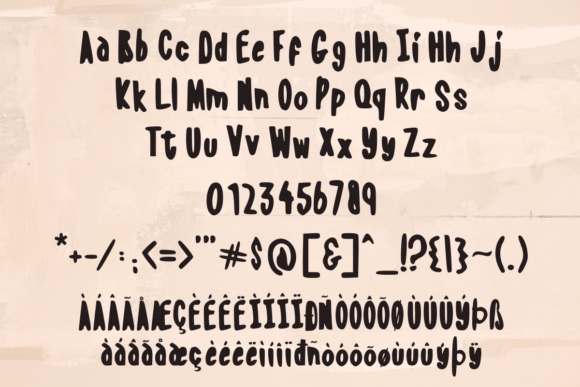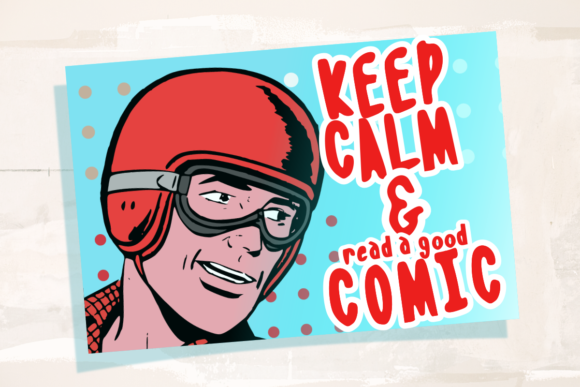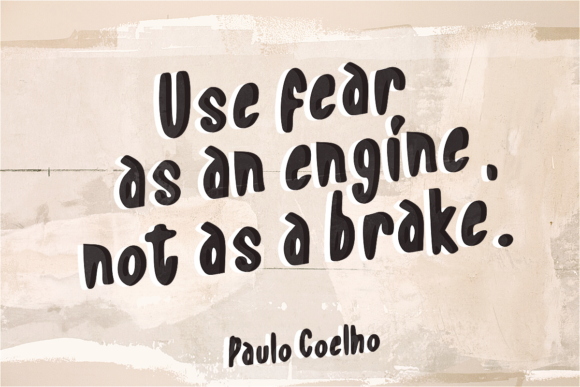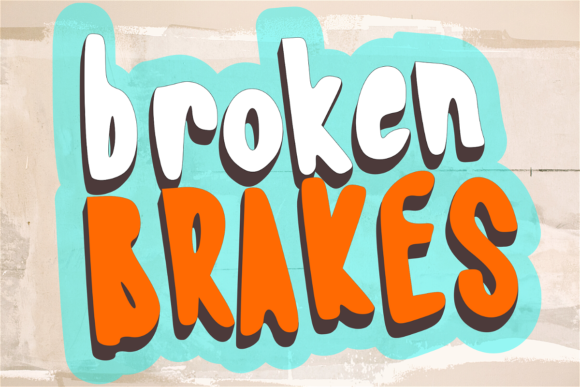
Introducing Broken Brakes Font: The Ultimate Display Font for Creative Projects
Are you tired of using the same old fonts for your creative projects? Do you want to add a touch of uniqueness and personality to your designs? Look no further than Broken Brakes Font, a friendly and authentic display font that’s sure to make your ideas stand out.
What is Broken Brakes Font?
Broken Brakes Font is a display font designed to add a touch of ruggedness and charm to your creative projects. With its unique and authentic style, this font is perfect for designers, crafters, and anyone looking to add some personality to their work.
Key Features of Broken Brakes Font
- Unique and Authentic Style: Broken Brakes Font has a one-of-a-kind design that’s sure to grab attention.
- Display Font: This font is specifically designed for display purposes, making it perfect for headlines, titles, and other prominent text elements.
- Easy to Read: Despite its rugged style, Broken Brakes Font is easy to read and understand, making it perfect for a wide range of applications.
- Versatile: This font can be used for a variety of creative projects, from posters and flyers to social media graphics and website headers.
- Posters and Flyers: Use Broken Brakes Font to create eye-catching posters and flyers that grab attention.
- Social Media Graphics: Add a touch of personality to your social media graphics with Broken Brakes Font.
- Website Headers: Use Broken Brakes Font to create unique and memorable website headers.
- Branding and Packaging: Use Broken Brakes Font to add a touch of ruggedness and charm to your branding and packaging materials.
Benefits of Using Broken Brakes Font
There are many benefits to using Broken Brakes Font in your creative projects. Here are a few:
- Stand Out from the Crowd: With its unique and authentic style, Broken Brakes Font is sure to make your designs stand out from the crowd.
- Add Personality to Your Designs: This font adds a touch of ruggedness and charm to your designs, making them more engaging and memorable.
- Versatile: This font can be used for a wide range of creative projects, making it a great addition to your font library.
- Experiment with Different Sizes and Colors: Try out different sizes and colors to see what works best for your design.
- Pair it with Other Fonts: Broken Brakes Font pairs well with other fonts, so don’t be afraid to experiment with different combinations.
- Use it for Headlines and Titles: This font is specifically designed for display purposes, so use it for headlines and titles to grab attention.
Broken Brakes Font is a friendly and authentic display font that’s perfect for designers, crafters, and anyone looking to add some personality to their creative projects. With its unique and rugged style, this font is sure to make your designs stand out from the crowd. So why wait? Download Broken Brakes Font today and start adding a touch of ruggedness and charm to your creative projects.